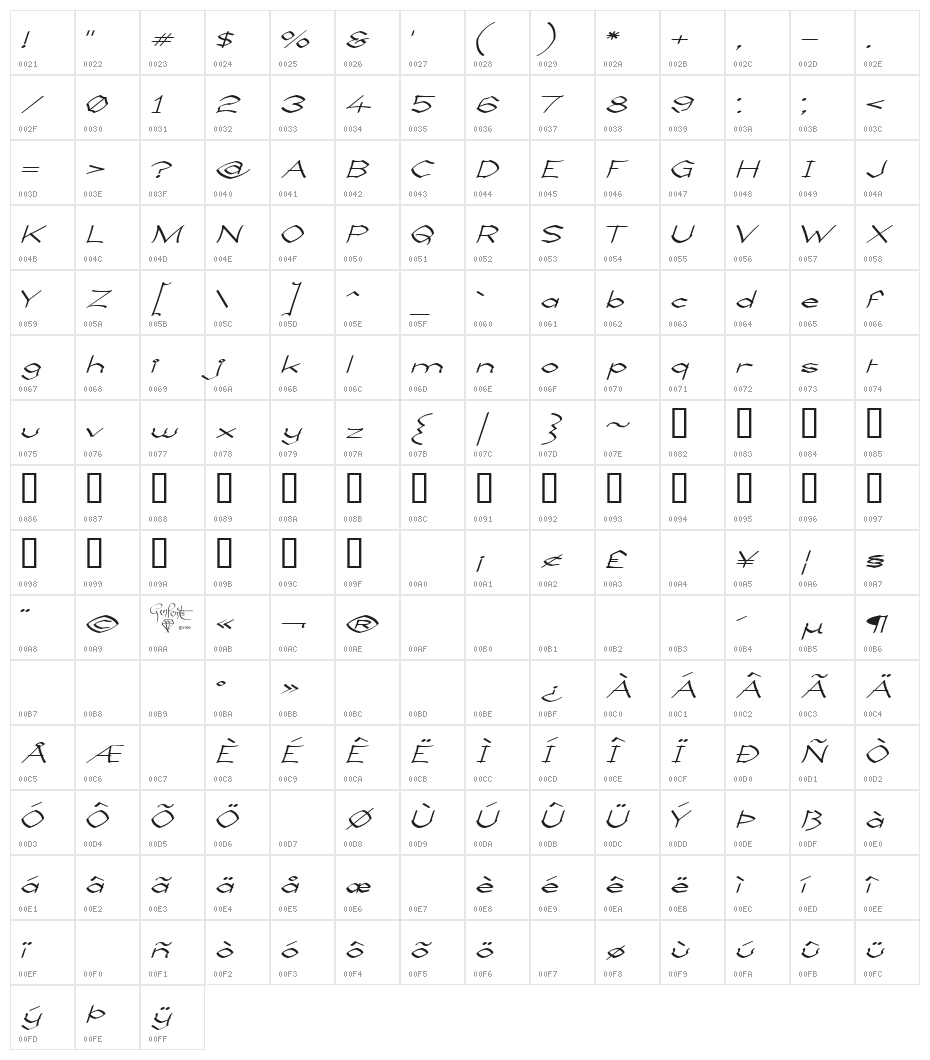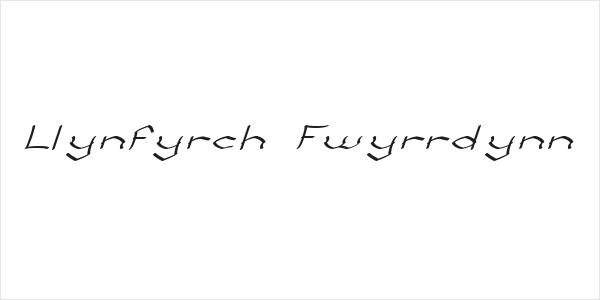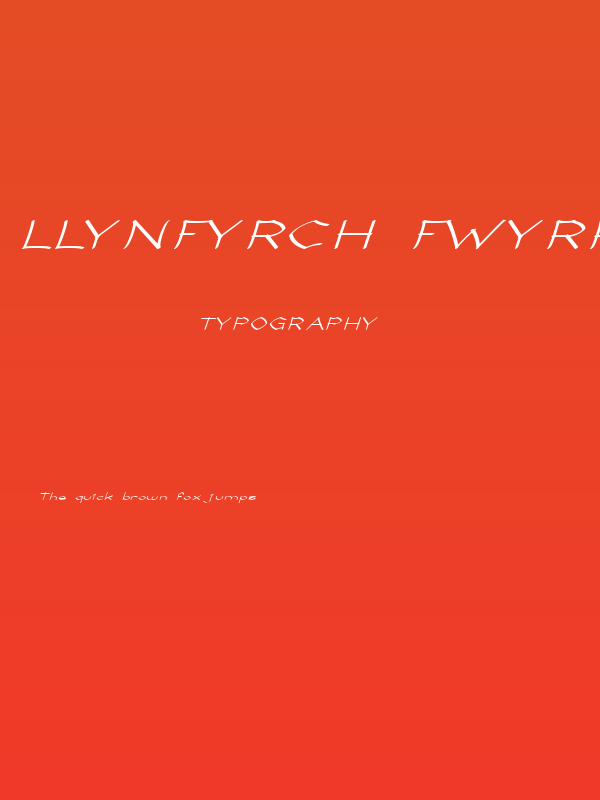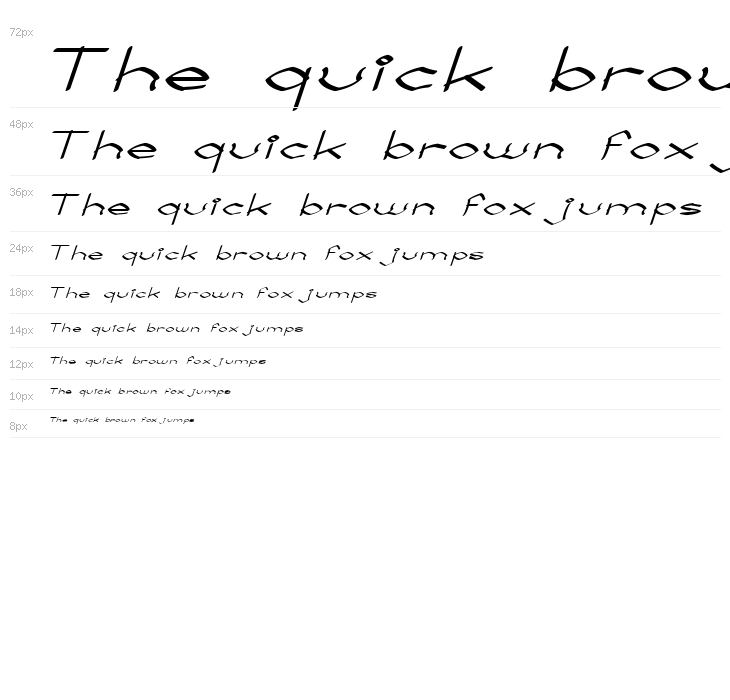
Llynfyrch Fwyrrdynn Font
Llynfyrch Fwyrrdynn Description
This font features a unique and artistic handwritten style with a slightly angular and jagged appearance. The letters are crafted with a fluid motion, giving them an organic and dynamic feel. The uppercase and lowercase letters maintain a consistent style, with some characters having distinctive loops and curves that add to the font's charm. The numerals and special characters are designed to match the overall aesthetic, ensuring a cohesive look across all text. This font is perfect for projects that require a personal touch or a creative flair.
| Overall Style | Artistic, Creative |
| Proposed Projects | Ideal for creative projects such as greeting cards, invitations, personal branding, and artistic posters. |